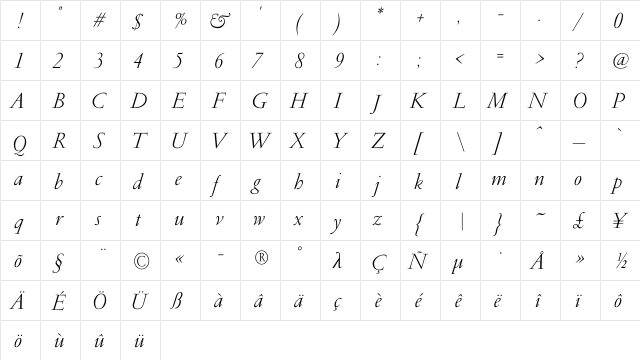
PF Garamond Classic Light Italic Font Preview
Design Context for PF Garamond Classic Light Typeface
PF Garamond Classic Light has the warm character of retro typography — evoking diners, record sleeves, and the golden age of print advertising. The dynamic lean of this cut emphasises speed and emphasis in any layout. The delicate stroke weight brings airiness and refinement to layouts.
Font Pairing: Combine PF Garamond Classic Light with a simple slab or neutral sans — period-accurate companions reinforce the vintage feel without competing for attention.
Pro Tip: Use PF Garamond Classic Light for headlines and pull quotes rather than body copy — its personality is best appreciated in short, focused bursts.